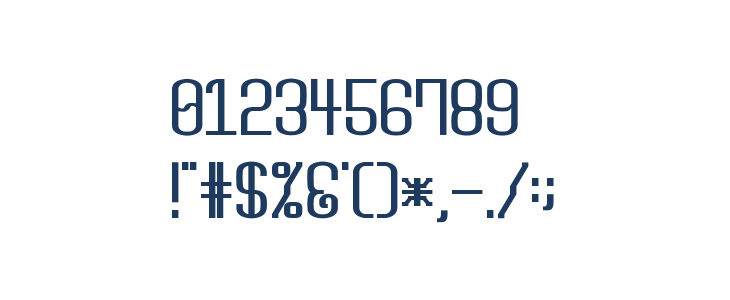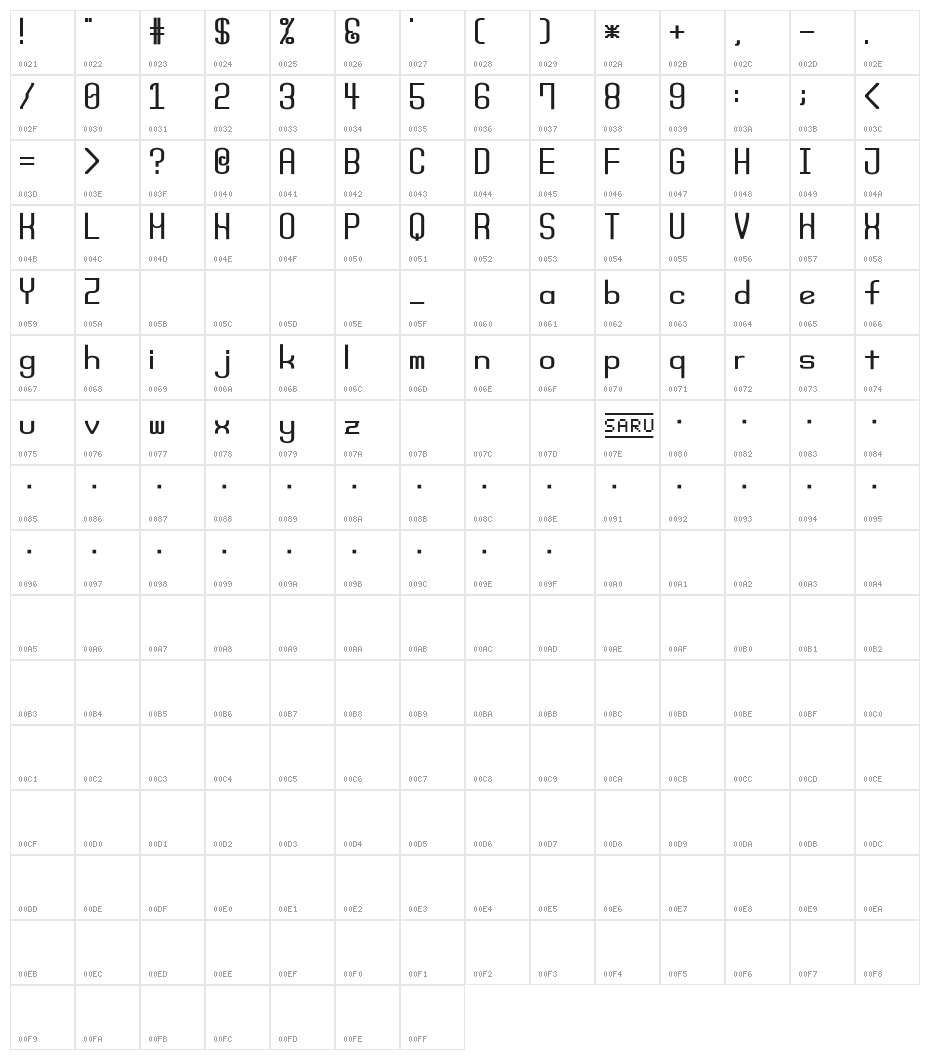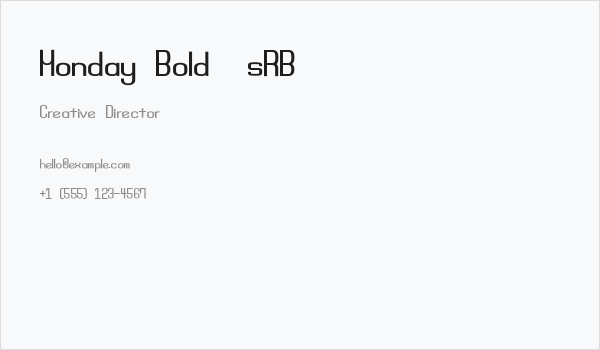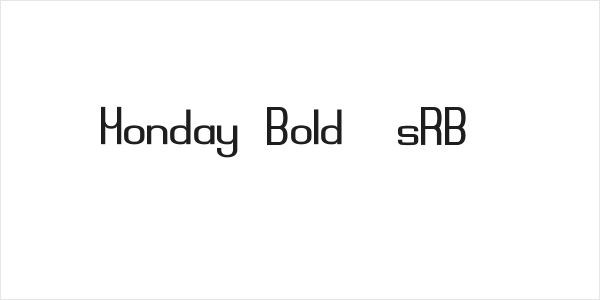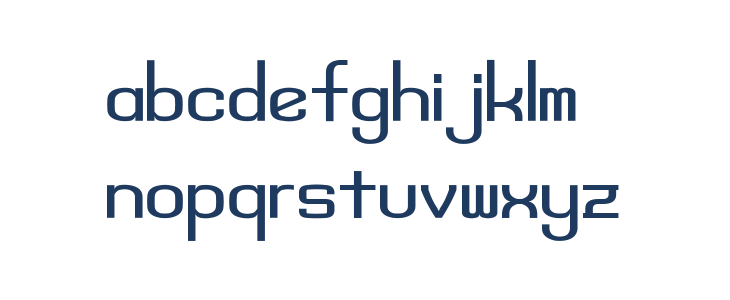
Monday Bold [sRB] Font
Monday Bold [sRB] Description
This font features a modern and geometric design with clean, straight lines and rounded edges. The uppercase letters are tall and narrow, giving a sleek and contemporary appearance. The lowercase letters maintain a consistent style, with a slightly more open and approachable feel. The numerals are uniform and align well with the overall design, ensuring readability. Special characters are distinct and maintain the geometric theme, adding to the font's versatility. This font is suitable for projects that require a modern and professional look.
| Use Case | Headlines, Logos, Digital Media |
| Proposed Projects | Ideal for branding, advertising, and digital media projects that require a modern and professional aesthetic. |